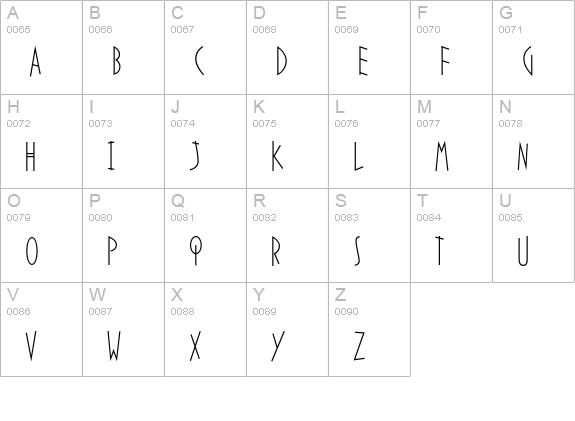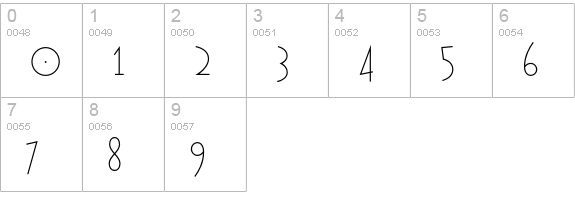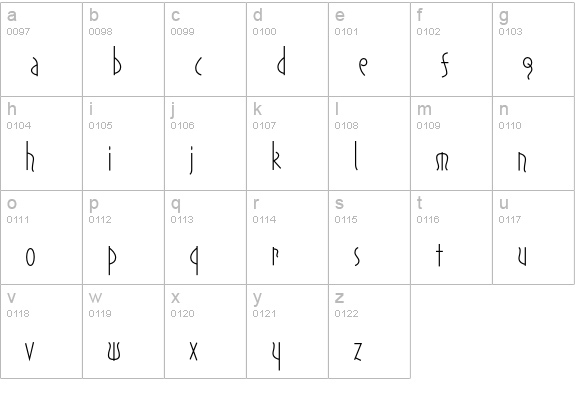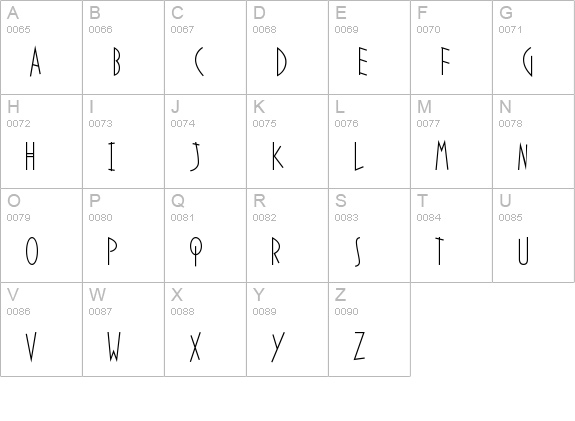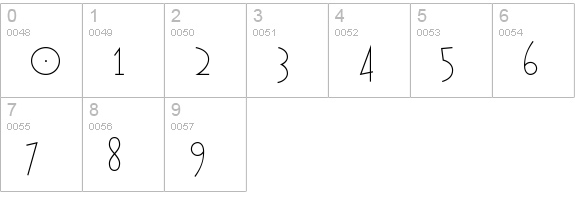
Amethyst Font Details
Amethyst font is a stunning display typeface that exudes elegance and sophistication. With its delicate curves and unique letterforms, Amethyst is perfect for adding a touch of flair to your design projects. This versatile font can be used for a variety of purposes, from branding to invitations to packaging. What makes Amethyst font even more appealing is that it is available for free download at FontsMarket.com. This means you can easily access this beautiful typeface and use it in your projects without any cost. Whether you're a seasoned designer or just starting out, Amethyst font is sure to elevate your creations and make them stand out. Don't miss out on this opportunity to enhance your designs with the enchanting beauty of Amethyst font. Download it for free today at FontsMarket.com and let your creativity shine!